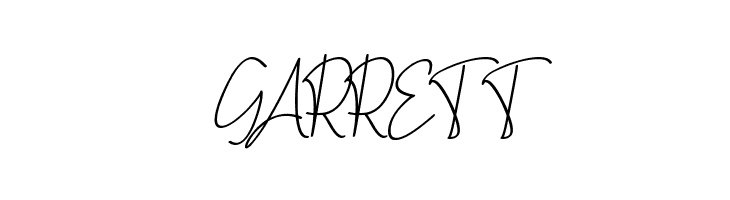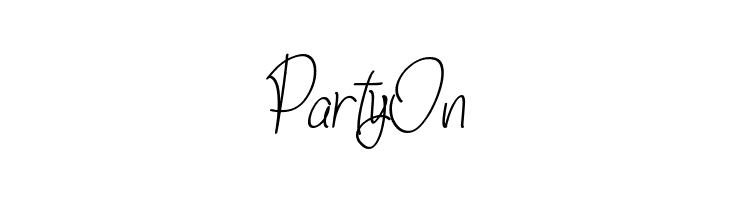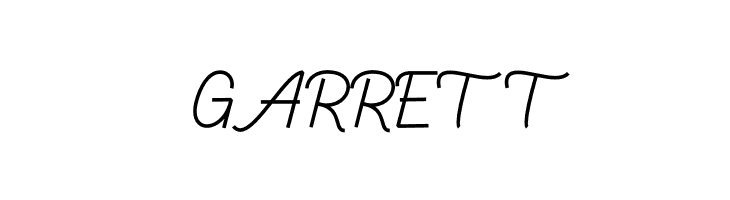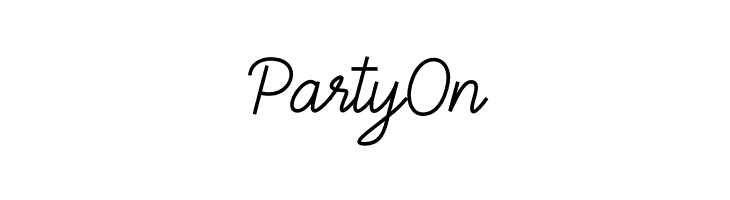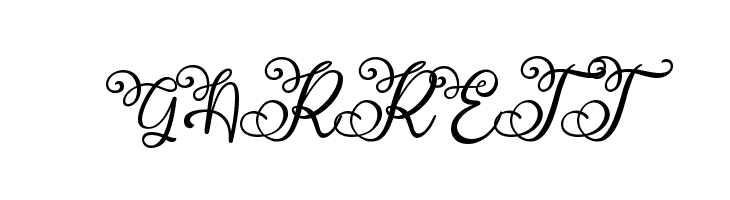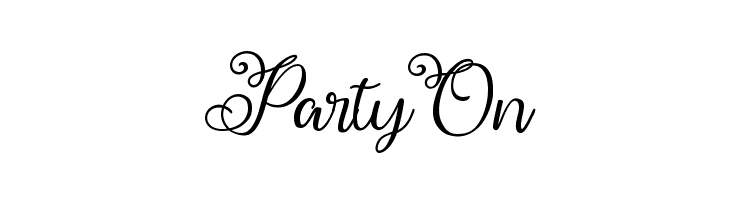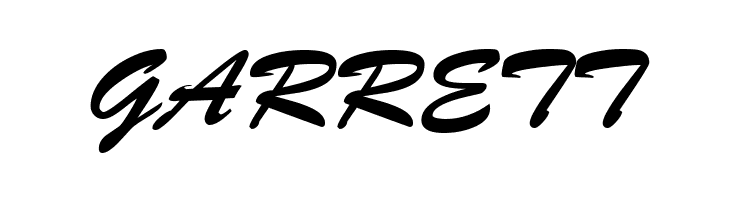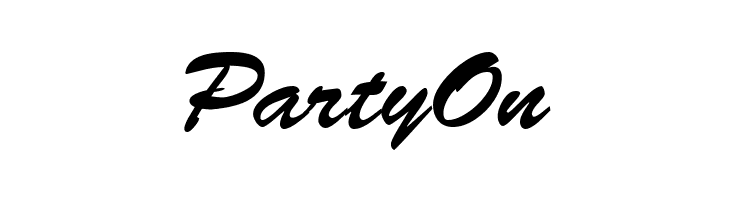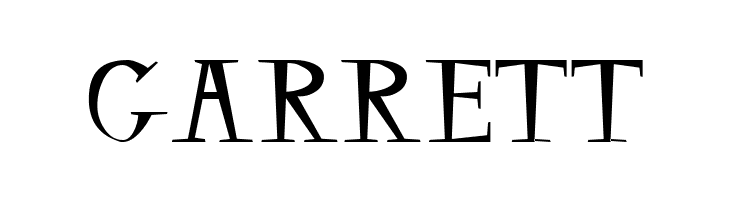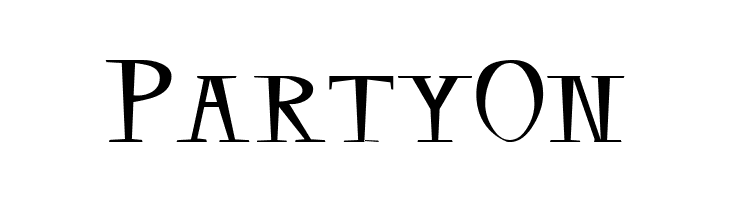
• Ballita Script
An elegant script font with intricate swirls and flowing cursive style.
• Ballock Script
A flowing, cursive script font with elegant, elongated letters and a natural handwriting style.
• BallpointScratch
• Balsamo!"
• Baltigo Script Regular
A lively and elegant script font with flowing, interconnected letterforms.
• BamsAnger
A bold, expressive font with a rough, hand-drawn style.
• Banana Peels
A bold, geometric font with rounded edges and a playful, modern style.
• Banitta Script
A lively and elegant script font with flowing, cursive letterforms.
• Bankoli Bold
• Baphomet!"
A bold, gothic font with sharp, angular edges and a dramatic style.